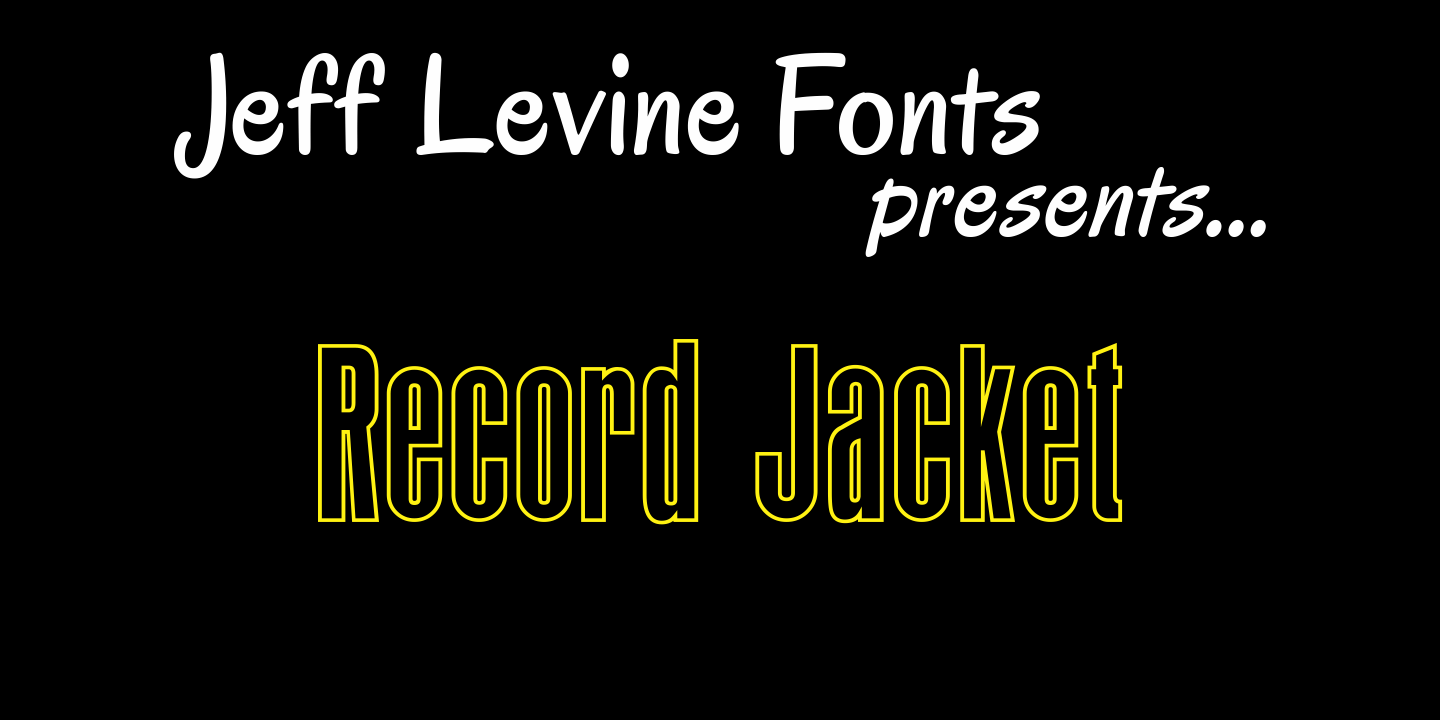
Record Jacket
Record Jacket JNL gives an outline treatment to the popular typeface used on record album covers in the 1960s and 1970s, and is based on Jeff Levine's Album Cover JNL.